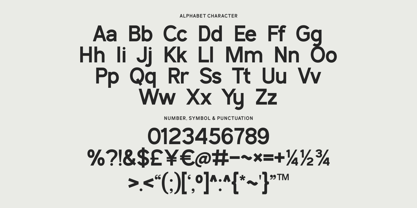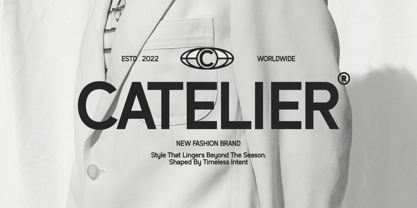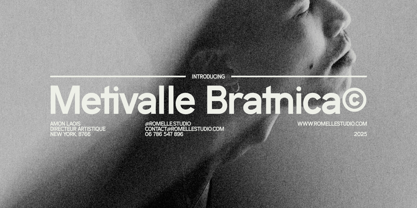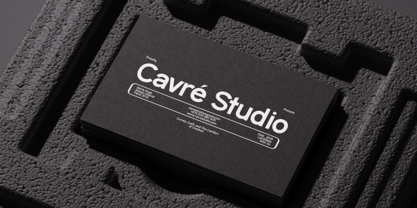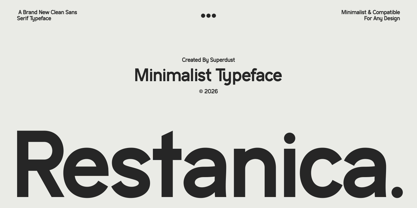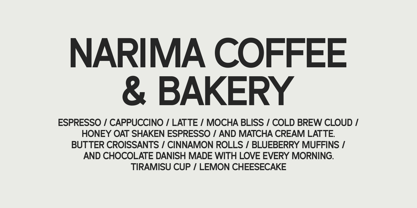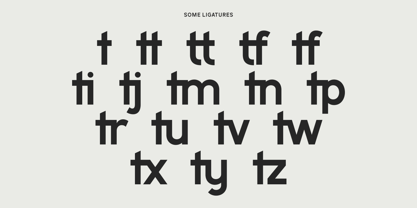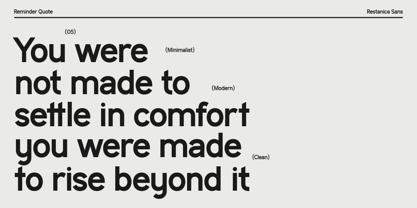
Restanica
Die Schriftfamilie Restanica wurde von Tri Iriyanto Wibowo entworfen und von Super Dust veröffentlicht. Restanica enthält 1 Stile. Mehr über diese Familie
Restanica is a modern sans-serif typeface crafted with a clean and minimalist aesthetic, designed to bring clarity, elegance, and balance to every visual composition. With its smooth curves, refined proportions, and carefully structured letterforms, Restanica delivers a contemporary appearance that feels both professional and approachable. Its simplicity allows it to adapt seamlessly across a wide range of creative projects, making it an excellent choice for branding, logos, editorial layouts, posters, packaging, social media graphics, and digital interfaces.
Built with a focus on readability and visual harmony, Restanica offers a calm and sophisticated presence without sacrificing character. Each glyph is thoughtfully designed to create a consistent rhythm, ensuring a polished look whether used in large headlines or supporting text elements. The clean construction of the typeface enables designers to communicate messages with confidence while maintaining a modern and timeless aesthetic.
The name “Restanica” is inspired by the concepts of “rest” and visual harmony, representing a sense of calm structure and balanced design. It reflects a typographic philosophy where simplicity becomes a strength, allowing content to stand out without unnecessary distractions. The distinctive “-anica” ending adds a contemporary and architectural nuance, suggesting precision, stability, and intentional craftsmanship. Together, the name embodies a typeface that feels composed, reliable, and effortlessly modern.
More than just a font, Restanica serves as a versatile visual tool for modern design needs, combining clean aesthetics, excellent readability, and timeless simplicity to help creators build strong and memorable visual identities.